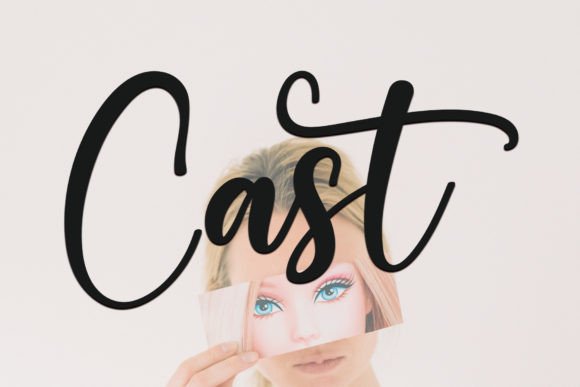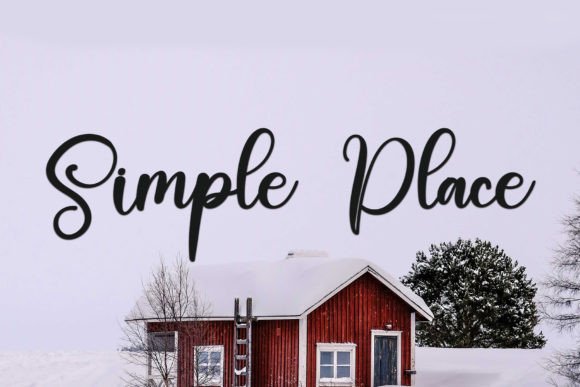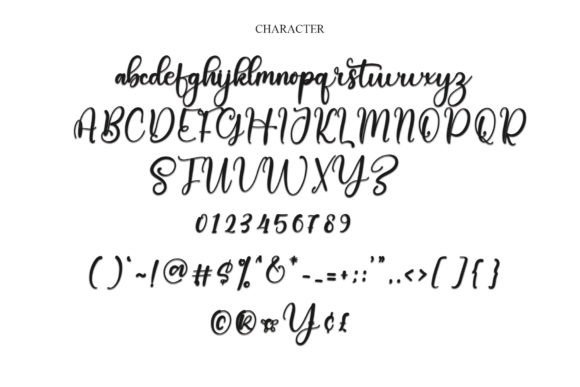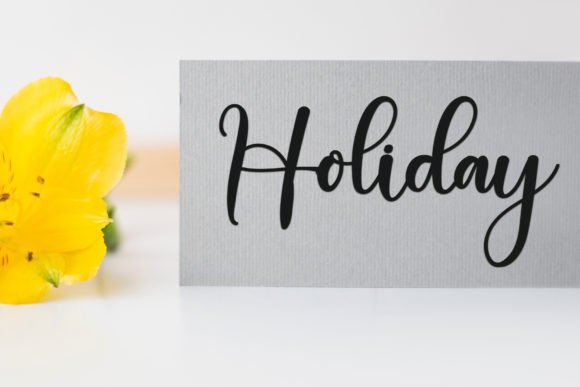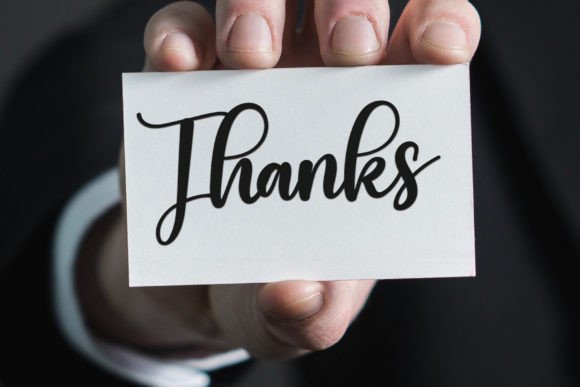
Introducing Course Font: The Enchanting Handwritten Script to Elevate Your Designs
Are you on the hunt for a font that can add a touch of romance and whimsy to your designs? Look no further than Course Font, a beautiful handwritten script that’s perfect for a wide range of projects. From greeting cards to headlines, Course Font is a versatile typeface that can elevate your work and leave a lasting impression on your audience.
The Charm of Course Font
Course Font is an enchanting handwritten font that’s designed to bring a sense of elegance and sophistication to your designs. Its unique, flowing script is reminiscent of traditional calligraphy, but with a modern twist that makes it perfect for contemporary projects. The font’s intricate details and subtle imperfections give it a human touch that’s sure to captivate your audience.
What Makes Course Font So Versatile?
One of the standout features of Course Font is its incredible versatility. This script font can be used in a wide range of applications, from:
- Greeting cards and invitations: Add a touch of romance and whimsy to your cards and invitations with Course Font’s elegant script.
- Headlines and titles: Use Course Font to create eye-catching headlines and titles that will grab your audience’s attention.
- Branding and packaging: Course Font is perfect for adding a touch of elegance to your brand’s packaging and marketing materials.
- Digital and print media: Whether you’re creating a blog post, social media graphic, or print advertisement, Course Font is a great choice.
The Benefits of Using Course Font
So why choose Course Font for your next project? Here are just a few benefits of using this enchanting handwritten font:
- Adds a romantic feel: Course Font’s elegant script is guaranteed to add a touch of romance and whimsy to your designs.
- Stand out from the crowd: With its unique and intricate details, Course Font is sure to make your designs stand out from the crowd.
- Easy to read: Despite its ornate details, Course Font is surprisingly easy to read, making it perfect for body text and headlines.
- Highly versatile: Course Font can be used in a wide range of applications, from digital and print media to branding and packaging.
Tips for Using Course Font Effectively
To get the most out of Course Font, here are a few tips to keep in mind:
- Use it sparingly: While Course Font is beautiful, it can be overwhelming if used too much. Use it sparingly to add emphasis and create visual interest.
- Pair it with a sans-serif font: For body text, pair Course Font with a clean sans-serif font to create a beautiful contrast.
- Experiment with colors: Course Font looks beautiful in a range of colors, from bold and bright to soft and pastel.
Course Font is a beautiful handwritten script that’s perfect for designers and crafters looking to add a touch of romance and whimsy to their work. With its unique and intricate details, Course Font is sure to elevate your designs and leave a lasting impression on your audience. Whether you’re creating greeting cards, headlines, or branding materials, Course Font is a versatile typeface that’s guaranteed to impress.